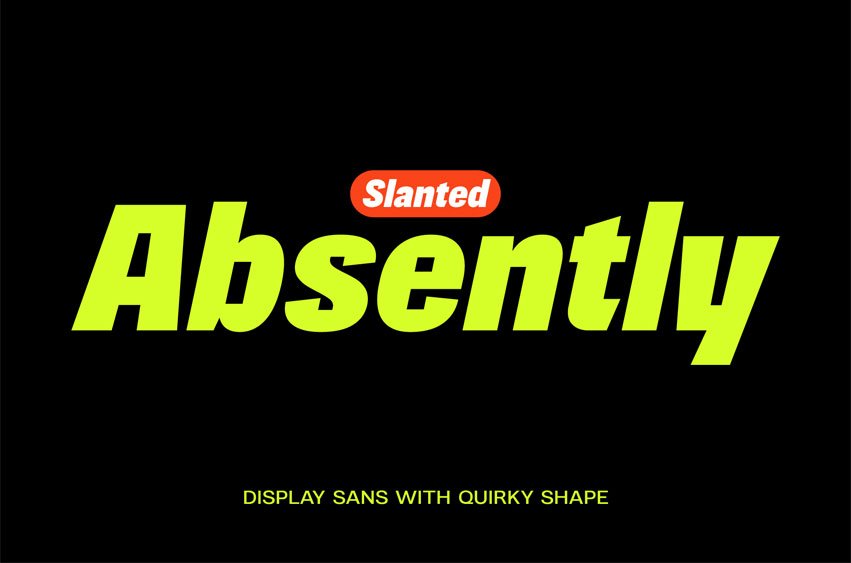
Absently Slanted Font is a striking display typeface that is geometric, forceful, and incredibly expressive. It is perfect for eye-catching applications like posters, headlines, or branding because of its substantial weight and modular design. Its somewhat compressed lines conjure a retro-modern appeal, reminiscent of mid-century display type modified for modern use, while the geometric shapes give it a modern and structured vibe.